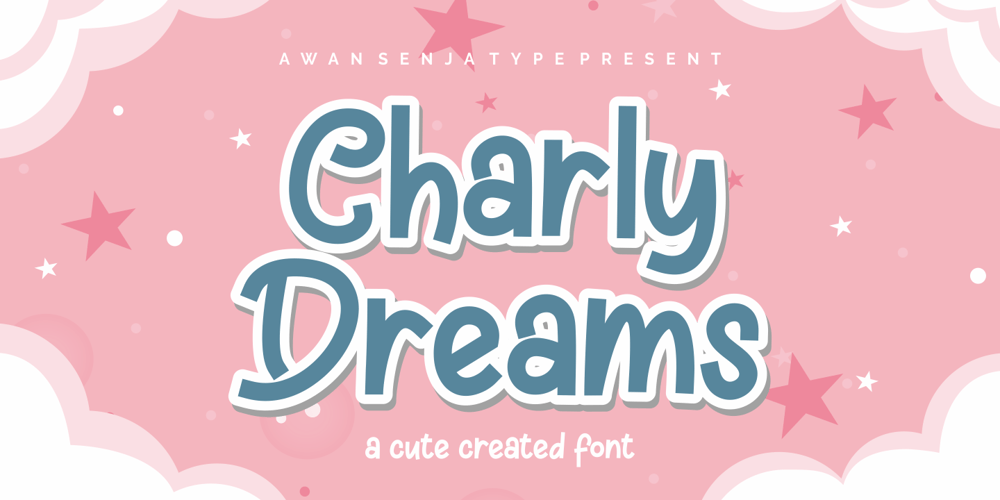
Charly Dreams Font Family was designed by Riyadh Abuhafs and published by Awan Senja. Charly Dreams contains 1 styles and family package options. Charly Dreams is a sweet, colorful and friendly display font. Add it to your most creative ideas and notice how it makes them stand out! The only limit is your imagination!